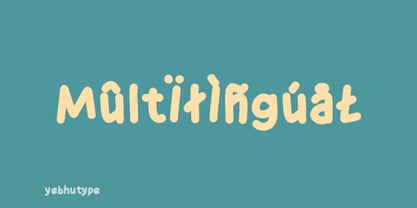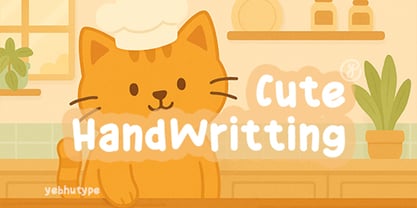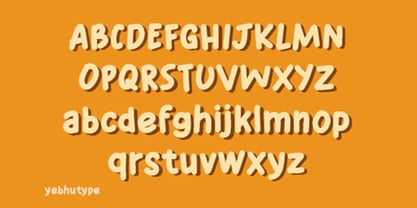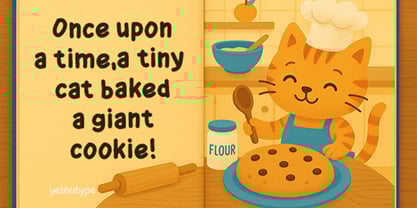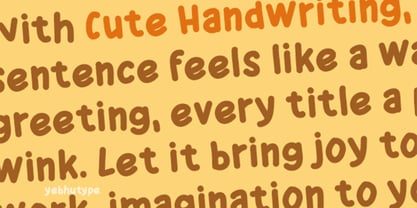
Cute Handwriting
by Yebhu
The Cute Handwriting Font Family was designed by Untung Prasetyo and published by Yebhu. Cute Handwriting contains 1 styles.
Cute Handwriting: Whimsy in Every Stroke
Say hello to Cute Handwriting, a bubbly handwritten typeface that radiates warmth, joy, and a playful spirit. Inspired by the charm of spontaneous sketches and cheerful scribbles, this font captures the essence of carefree creativity. Whether you're designing for kids, crafting something cozy, or adding a dash of personality to your project, Cute Handwriting makes every letter feel like a hug in type form.
With its rounded edges, gentle curves, and lively rhythm, Cute Handwriting invites you to explore a world where fonts aren’t just tools—they’re storytellers.
The Magic Behind Cute Handwriting
Cute Handwriting is more than just a typeface—it’s an experience. It echoes the joy of hand-drawn doodles in notebooks, the innocence of childhood, and the comfort of something lovingly imperfect. Every glyph carries a touch of humanity, reminding us that creativity isn’t always clean—it’s real, relatable, and full of heart.
Key Features
✍️ Casual Handwritten Personality
Natural, informal strokes that feel like they were penned straight from your imagination.
🍩 Rounded & Friendly Letterforms
Soft curves and puffy shapes make each character approachable, sweet, and easy on the eyes.
🌟 Playfully Organic Feel
No two letters are exactly alike—tiny variations give this font a charming, handmade touch that adds character to every project.
📏 Clear & Readable at Any Size
From headlines to body text, Cute Handwriting remains legible without losing its fun-loving essence.
🔡 Full Character Set
Includes uppercase, lowercase, numerals, and essential punctuation, giving you everything you need for fully expressive typography.
Mood & Personality
Cute Handwriting is bright, cheerful, and completely irresistible. It’s the font equivalent of a giggle, a warm note from a friend, or a page from your childhood sketchbook. It brings a touch of lighthearted energy to any design while keeping things cozy, sincere, and heartfelt.
Perfect For
📗 Children’s Books & Educational Design
Bring stories and lessons to life with a font that speaks directly to young hearts and curious minds.
🎈 Party Invitations & Greeting Cards
Add joy and personality to every celebration, from birthdays to baby showers and everything in between.
👪 Family-Centered Branding
Perfect for toy packaging, parenting blogs, daycare centers, or anything that needs a nurturing, trustworthy vibe.
📱 Social Media & Content Creation
Make your posts pop with a font that’s warm, engaging, and packed with personality.
🎨 DIY Crafts & Personal Projects
Journals, planners, stickers, scrapbooks—Cute Handwriting brings charm to every creative endeavor.
Why Choose Cute Handwriting?
In a world that often favors sleek and sterile, Cute Handwriting celebrates the wonderfully wobbly, perfectly imperfect beauty of handwritten expression. It’s a font that doesn’t just decorate your message—it adds heart to it. Whether you're designing for a client or just for fun, this typeface helps your work feel more human, more joyful, and more alive.
Let Your Words Smile
With Cute Handwriting, every sentence feels like a warm greeting, every title a playful wink. Let it bring joy to your work, imagination to your process, and a sense of wonder to everything you create.